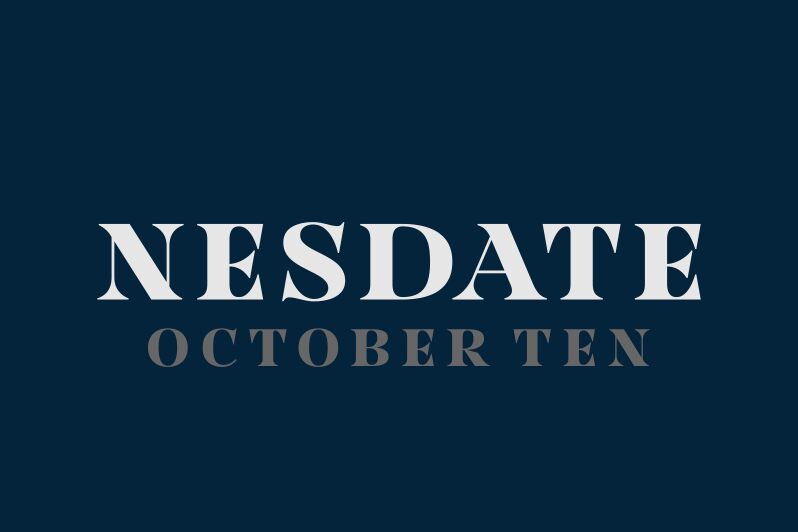
NesdateOctoberTen
Nesdate October Ten is a captivating serif font that exudes a harmonious blend of tradition and modernity. Designed by Situjuh Nazara, this bold typeface boasts a striking visual presence, with its sharp serifs and impactful letterforms commanding attention.
The font's balanced proportions and clean lines lend it a timeless elegance, making it well-suited for a wide range of applications, from editorial design to branding and packaging. Its robust character affords Nesdate October Ten a sense of authority and gravitas, making it an excellent choice for headlines, titles, and other prominent textual elements.
The font's versatility ensures its seamless integration across diverse design landscapes, from the printed page to the digital realm.